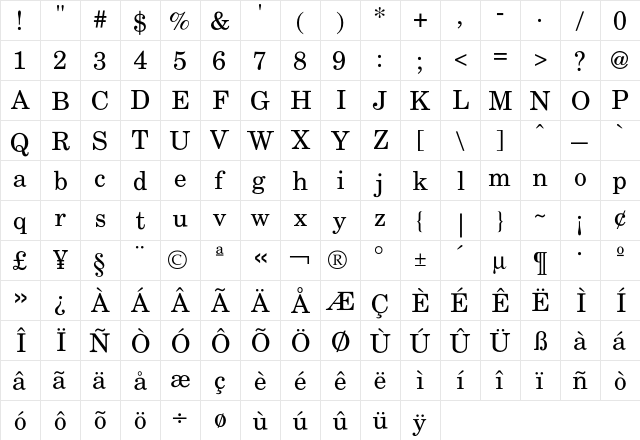
Century School
Design Context for Century Typeface
Century is a composed and adaptable typeface that performs quietly and consistently across a wide range of design contexts.